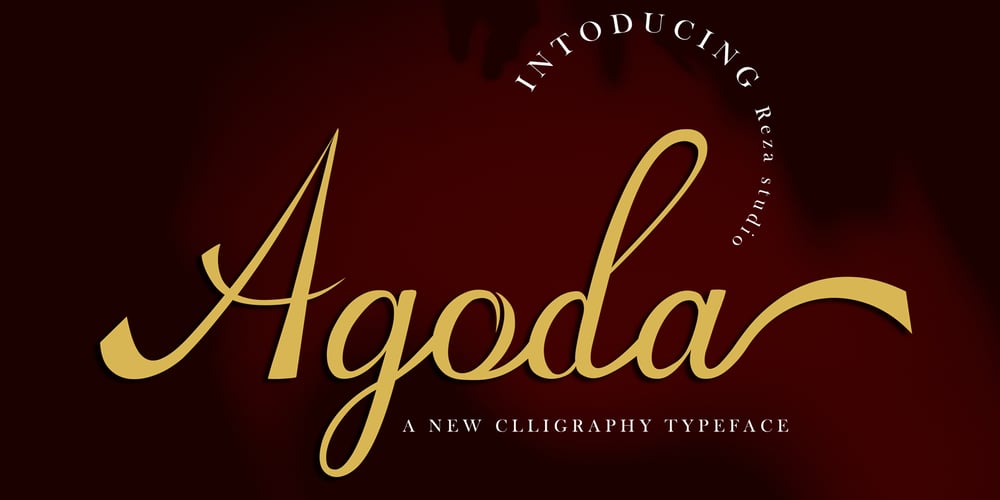
Agoda Font Family was designed by Reza Mukhtazar and published by Rezastudio. Agoda contains 1 styles and family package options. Agoda is a stylish, classy and delicate script font. It has a clean, thin and smooth vibe and it will be a hit for any design that you want to add it to. Agoda is PUA encoded which means you can access all of the glyphs and swashes with ease!